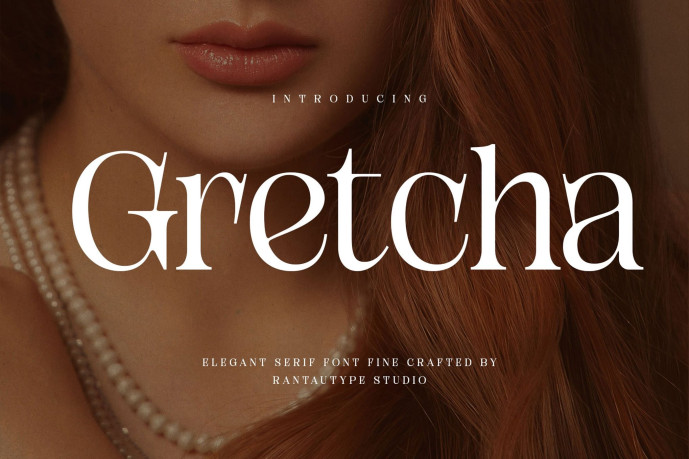
Gretcha Font
Gretcha Font is serif font embodies timeless sophistication, crafted to elevate any visual identity with grace and distinction. Each letterform is designed with intention fine serifs and balanced proportions create a harmonious rhythm that draws the eye and enhances readability across both print and digital mediums.
Gretcha is a perfectly choice for any creative endeavor, chic, lifestyle design such as logotype, advertisements, watermark on photography, stationery, branding project, display and magazine, invitation, corporate brand, product design, label, business project and many other project with retro touch.